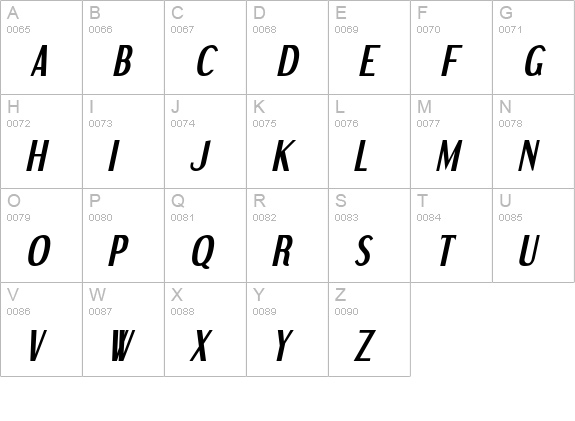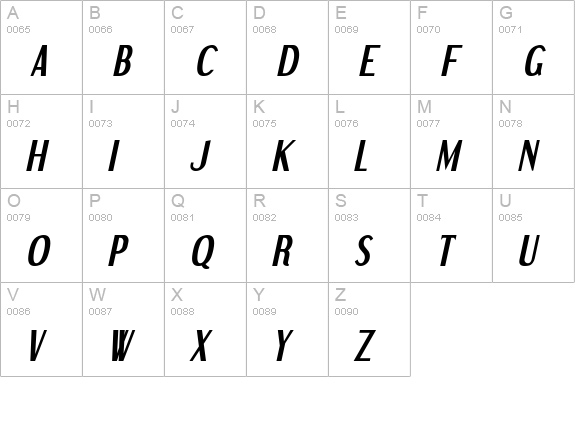
Dream Orphans Bold Italic is a strong, high-contrast, italic variant in the Dream typeface family \xE2\x80\x94 well suited to headlines, attention-grabbing titles, and strong calls-to-action.
Dream Orphans Bold Italic is a striking and elegant typeface that exudes sophistication and creativity. Its bold and italic design adds a touch of flair to any project, making it perfect for eye-catching headlines, logos, and branding materials. The unique character shapes and slanted angles of this font give it a modern yet classic feel, making it versatile for a wide range of design applications. What sets Dream Orphans Bold Italic apart is that it is not only visually stunning but also free to download at FontsMarket.com. This means that you can enjoy all the benefits of this beautiful font without any cost, making it a valuable asset for designers, creatives, and anyone looking to elevate their projects with a touch of elegance and style. Download Dream Orphans Bold Italic today and unleash your creativity with this exceptional typeface.